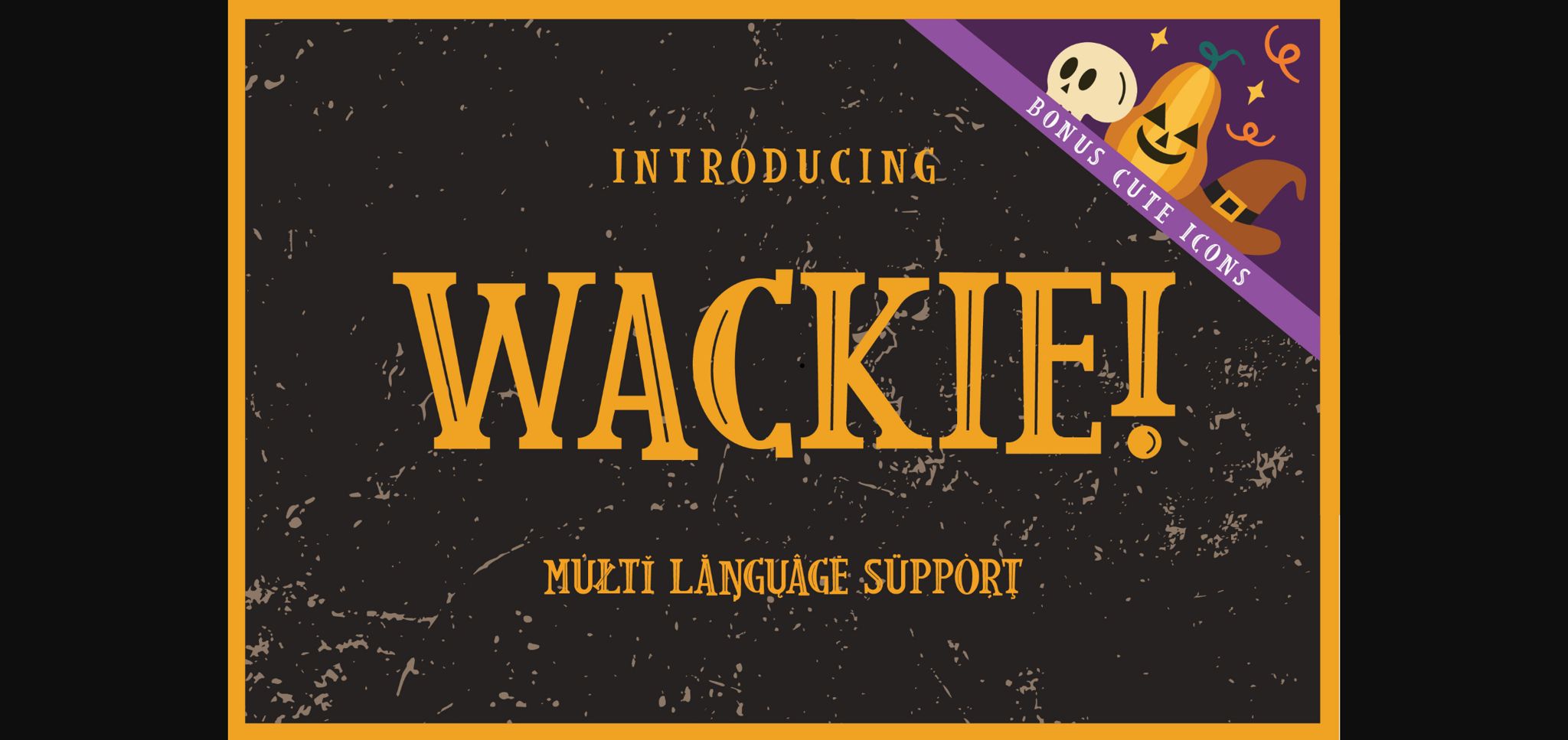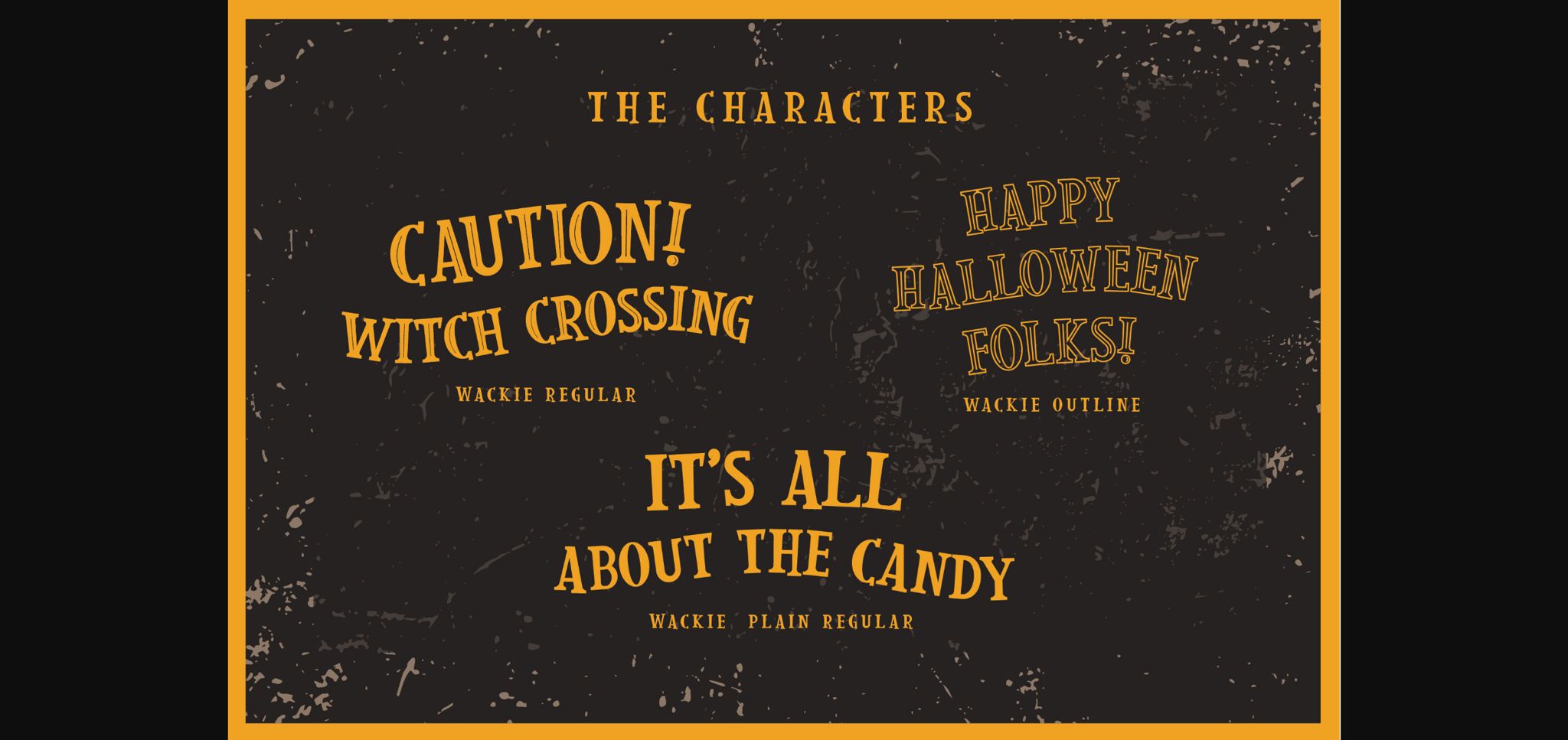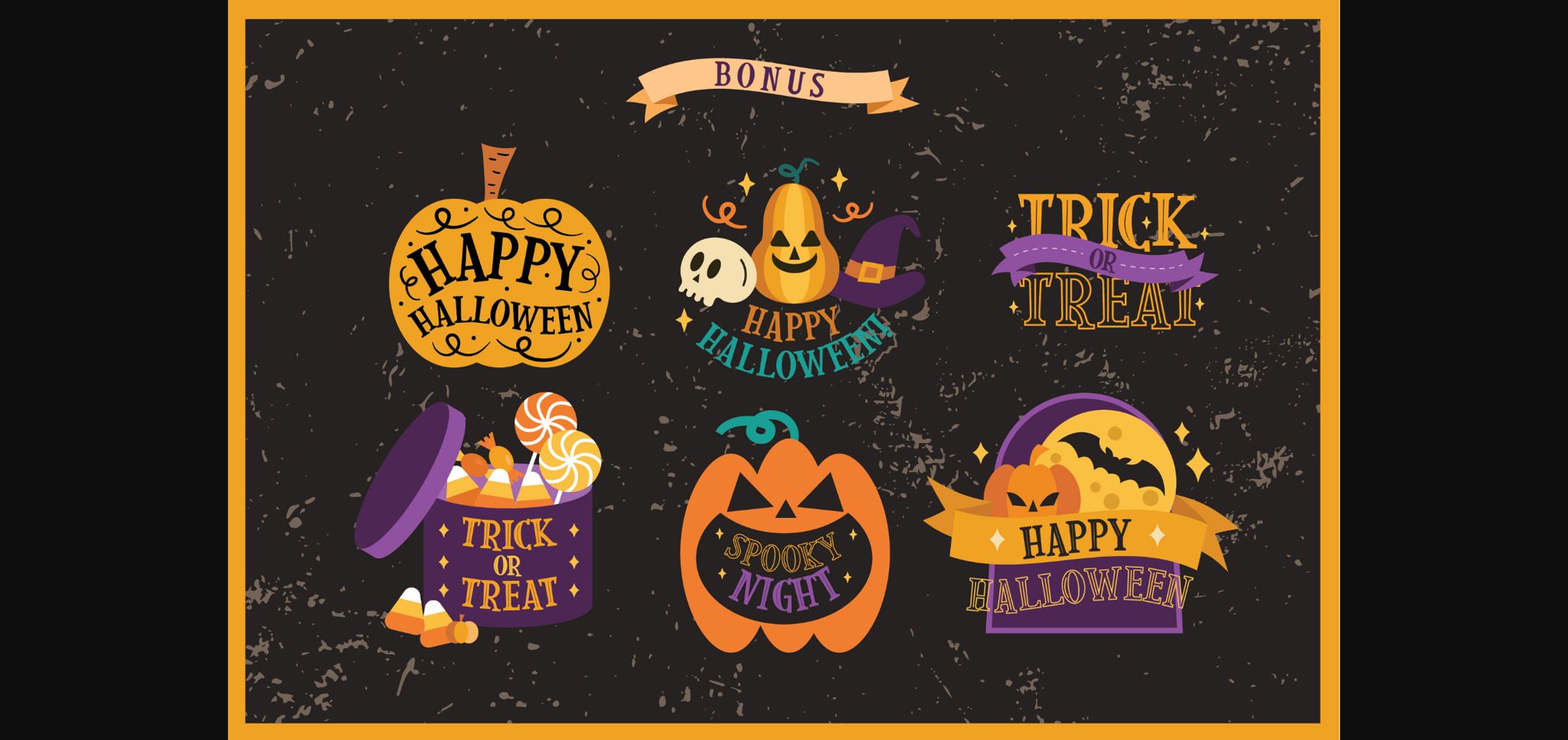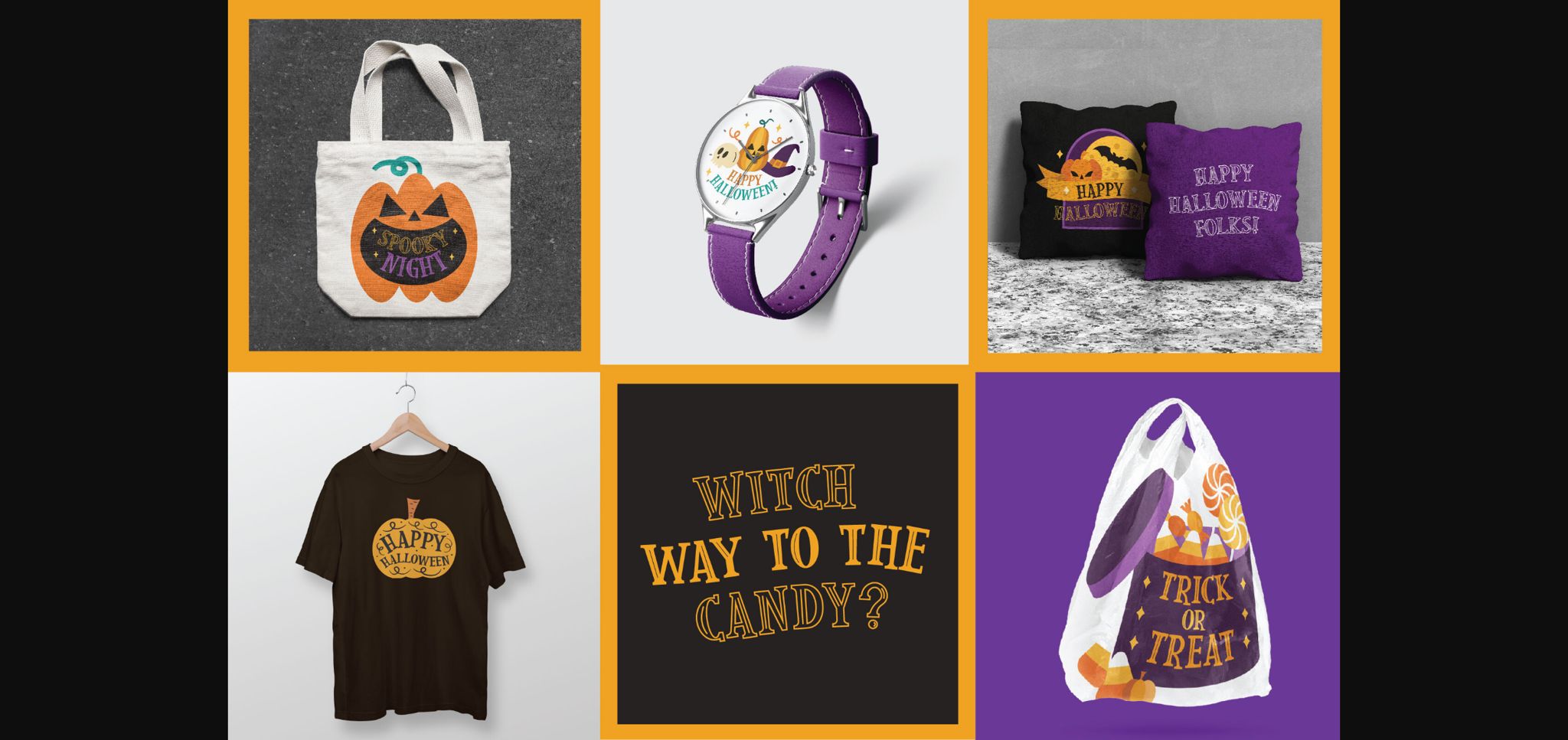
Wackie! Font
About Wackie! Font
Wackie! is a san serif font perfect for your next Halloween season. It has 3 styles that you can pair with, the one with strokes inside, the plain one, and the outline. This font also comes with 6 cute icons/badges that you can use for a Halloween party. Use this font to make some stickers, posters, t-shirts, garlands, and many more Halloween stuff. Make your own beautiful design with this gorgeous font.